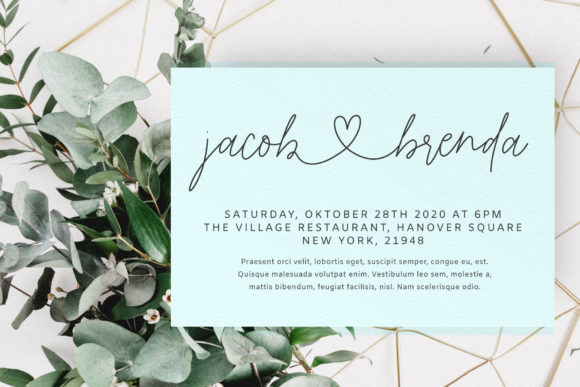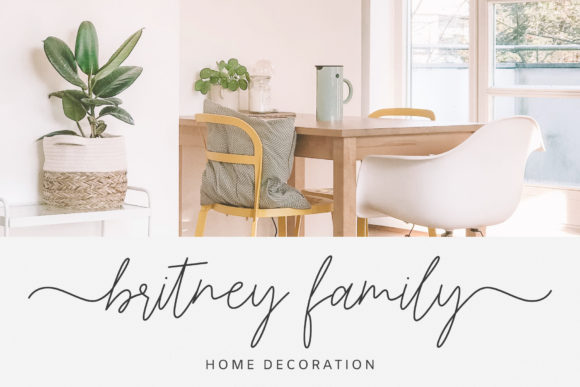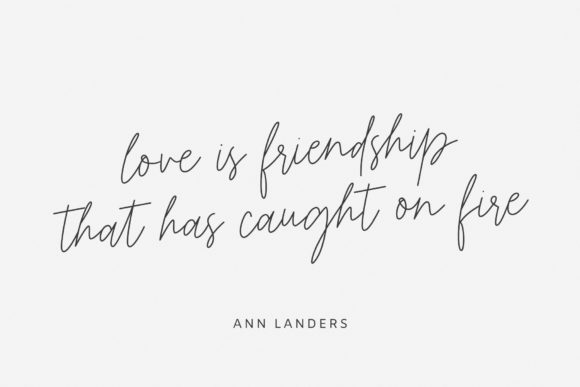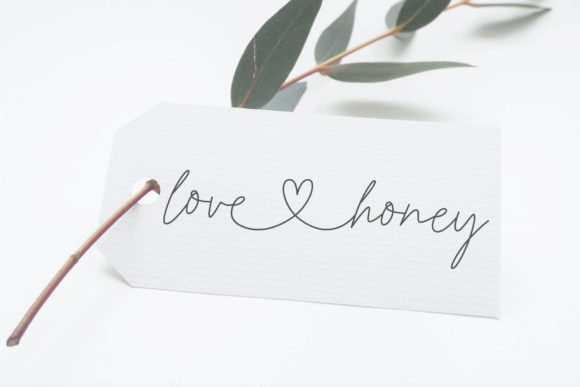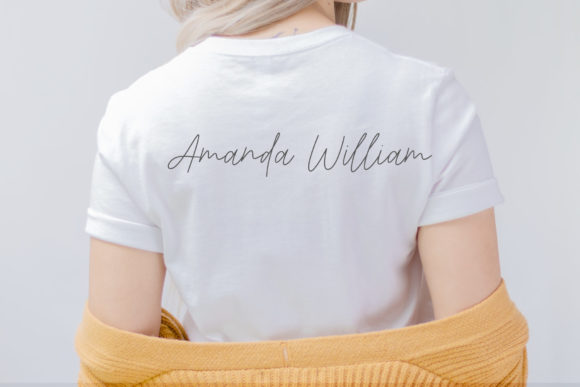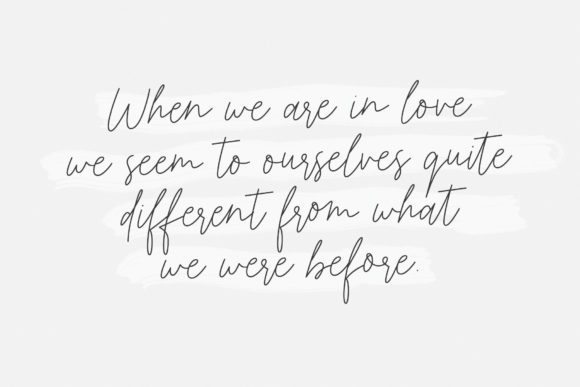
Introduction to Jack and Kate Font
Jack and Kate is a beautiful and light handwritten font with a unique feel and a stunning impact.
Key Features of Jack and Kate Font
Why Choose Jack and Kate Font?